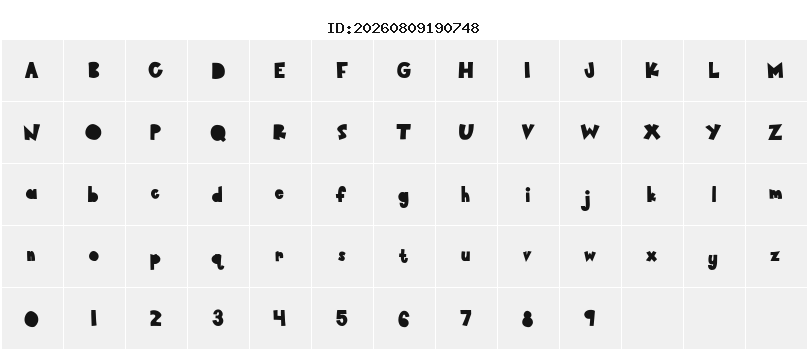
Paper Cutout Preview
• Font Name: Paper Cutout
• Designer: Kimmy Kirkwood
About Paper Cutout.ttf
Paper Cutout.ttf is a modern, elegant sans-serif font designed for ultimate readability and visual harmony. Perfect for branding, headlines, web design, and print materials.